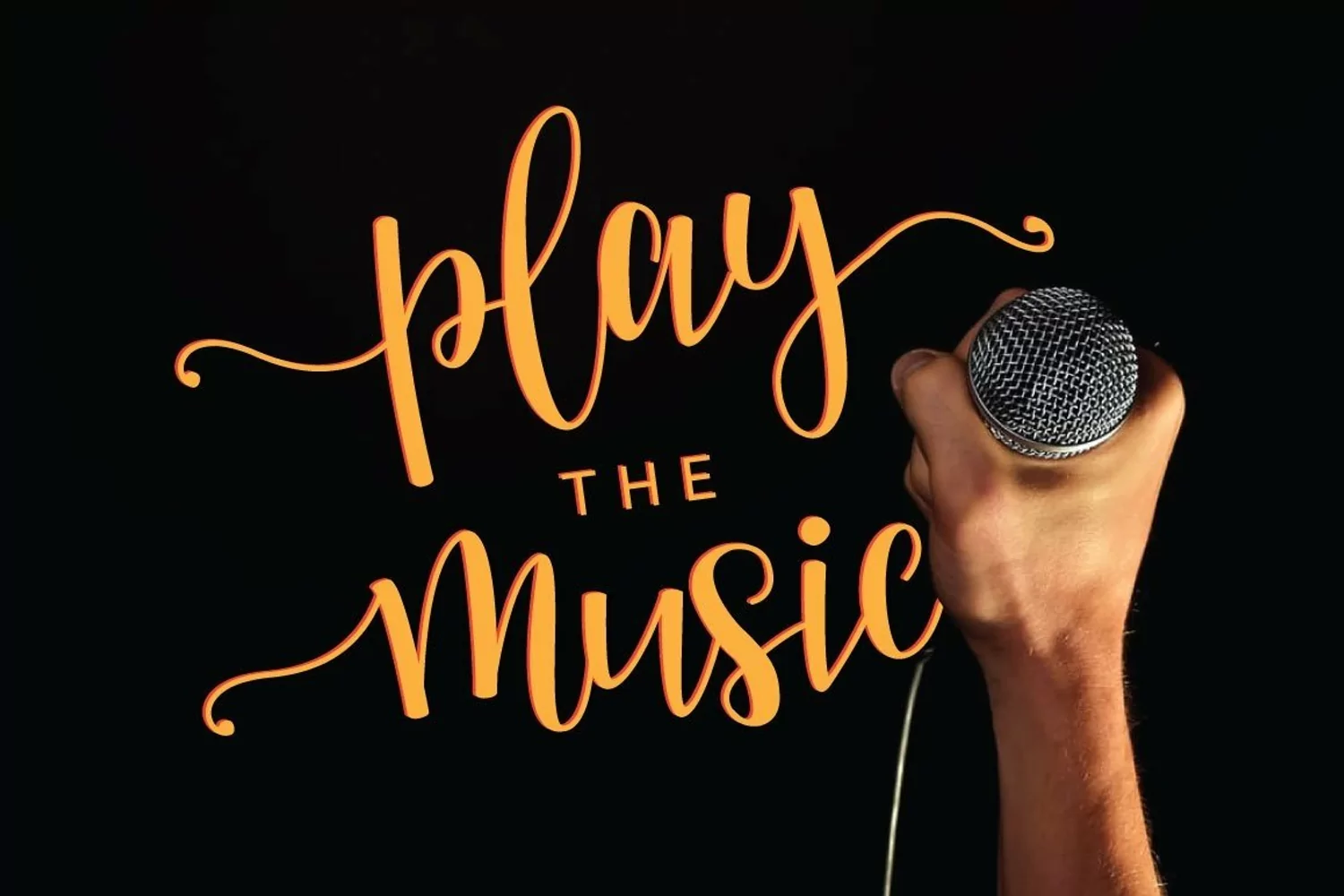
Mellany is a modern script calligraphy typeface designed with care is guaranteed to give you in creating beautiful hand-made typography within a second. ;) Use Mellany to help you create custom hand-lettering with the look of perfect hand lettering and a bit bouncy baseline.
Handwritten two alternative and initial plus end swashes option which allow you to create different feels for different projects. Ligatures also available for some characters to create more natural look. Try switching between the regular and alternate characters as well as with swashes to get the best layout for your text.
Mellany script is perfect for logos, websites, invitations, greeting cards, magazines, business cards, packaging and many more! Be a perfect professional in a minute and start creating modern designs.